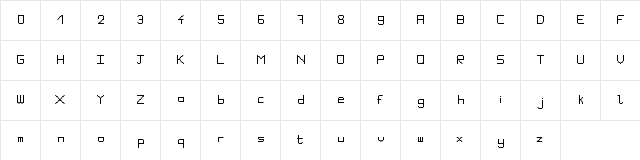
WLM Pixel Party White Semibold Regular
Design Context for WLM Pixel Party White Semibold Typeface
WLM Pixel Party White Semibold celebrates the constraints of early digital type, turning pixel geometry into a distinctive and immediately recognisable style.
Well-suited to indie game interfaces, retro computing aesthetics, and pixel art-adjacent design work.
Pro Tip: Use WLM Pixel Party White Semibold at sizes that align with its pixel grid for the sharpest rendering — scaling to non-integer multiples can introduce unwanted blur.